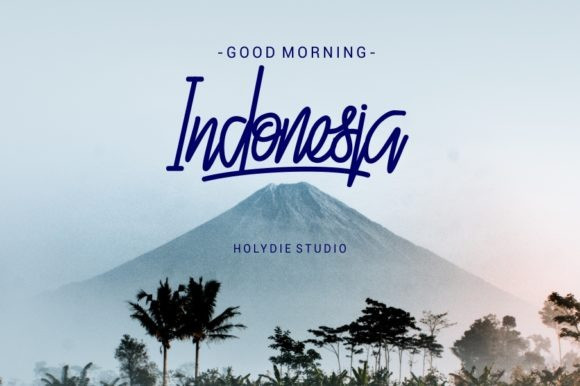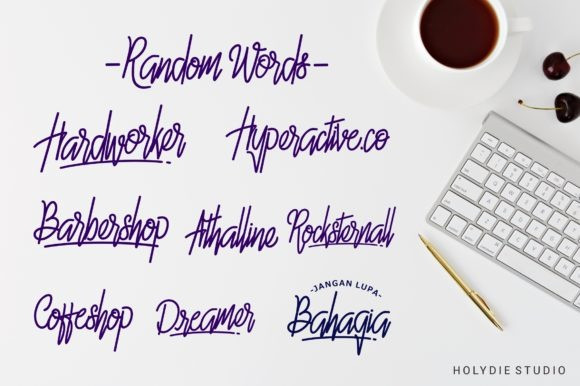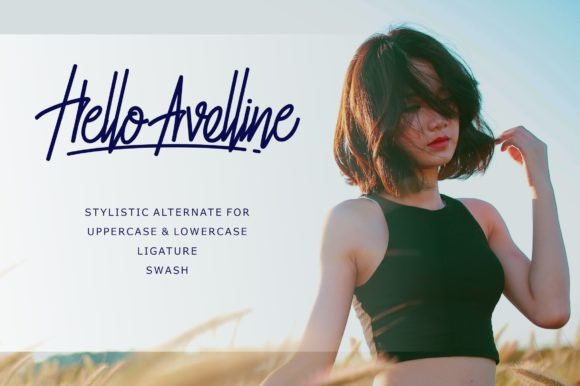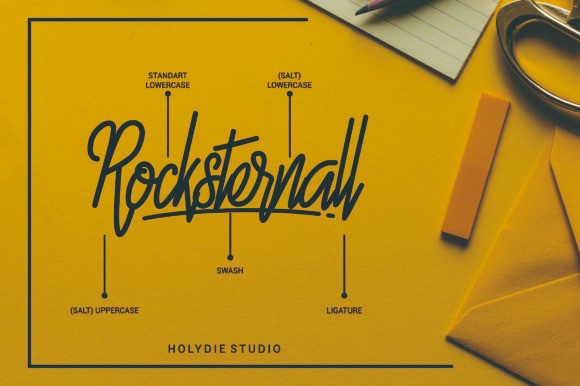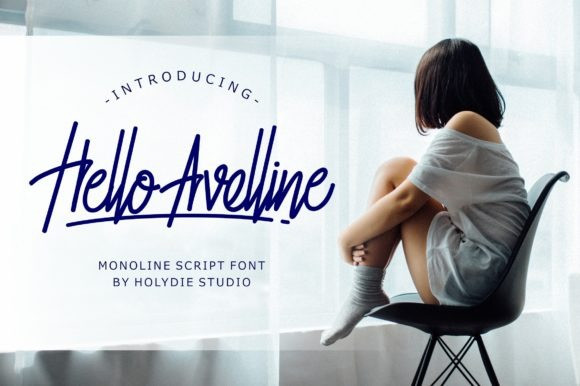
Hello Avelline – Monoline Script Font
Hello Avelline Font is a new elegant and classy monoline script font, it’s made a naturally modern script with a fresh modern script, delivering a stylish script which is guaranteed to add an eye-catching appeal to your designs. It’s a fresh monoline script font. It’s suitable for logos, branding, magazines, signature, apparel, posters, advertising, business cards, and more